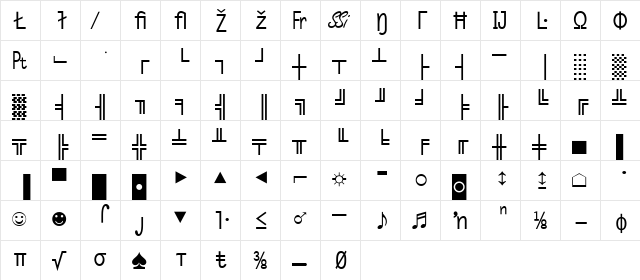
Micro Pi Two SSi Normal
Micro Pi Two SSi takes a measured approach to typography — its balanced proportions and neutral character make it a reliable workhorse for both digital and print work.